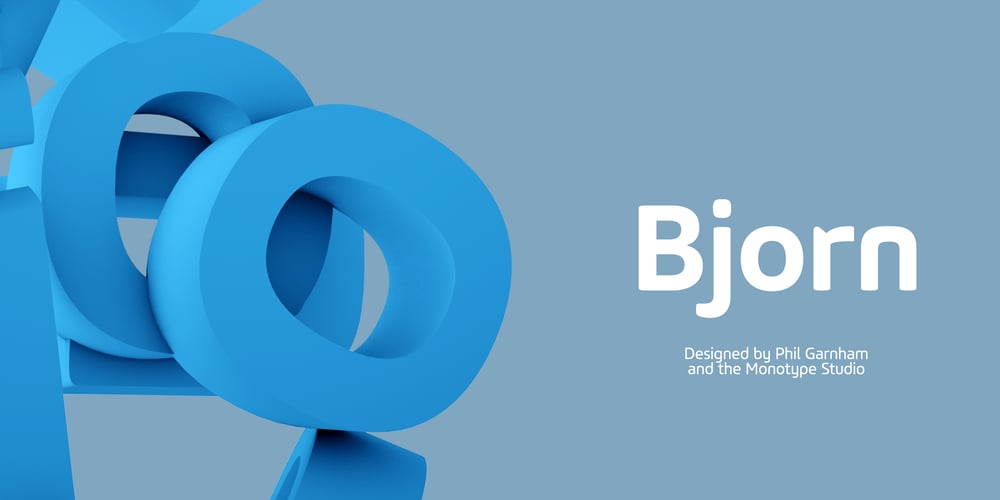
Bjorn Font Family was designed by Monotype Design Studio, Phil Garnham and published by Monotype. Bjorn contains 4 styles and family package options. Meet Bjorn. A super usable, digital-device ready type design, refreshingly unburdened by today’s pre-conceived notions of ‘digital neutrality’. This is a typeface driven by the notion that today’s ‘digital’ shouldn’t automatically mean the devolution of typographic personality, Bjorn brings a softer-side to the idea of pixel perfect brand comms. Solid digital typography can also convey a warm tone of voice, radiate a softness, a human emotive charm whilst still maintaining all of the functional on-screen requirements of crisp easy reading fonts across viewports. Bjorn is a distinctive type design that combines a unique blend of flattened round stems (to take the edge-off), levelled inner terminals (pixel friendly) and pointed ears and feet (creating an distinct rhythm and dynamic with bowled letters). Bjorn is not a typeface following a tried and tested pattern, it’s a typeface designed to make digital brands feel special, enabling speech in a voice that brings viewers closer to their words. Bjorn is warm, yet clinical, flat and curved, elliptical and pointy. The font’s strong sense of ‘straightness’, the letter proportions and features build up its versatility across digital environments, not too wide, not too narrow, not too pointy, not too round — just right. Bjorn is available in 4 Roman styles — Light, Regular, Medium and Bold.